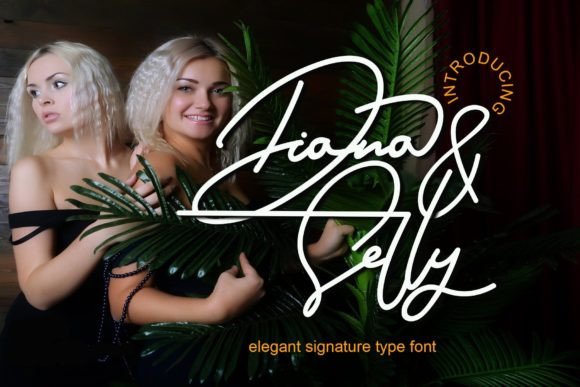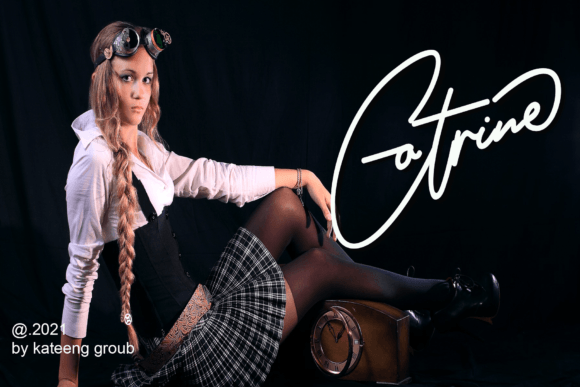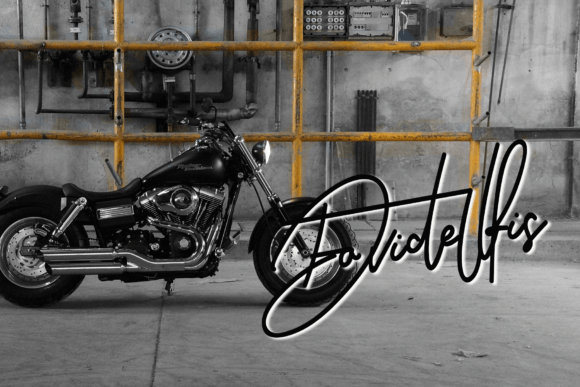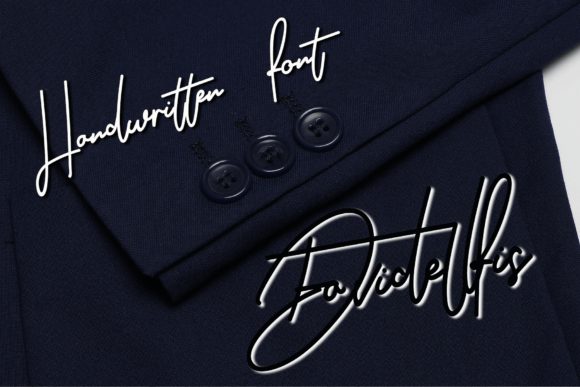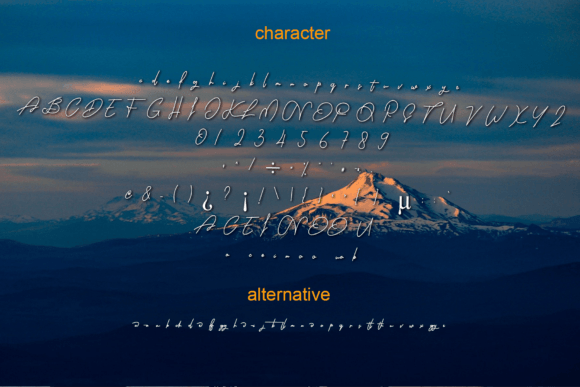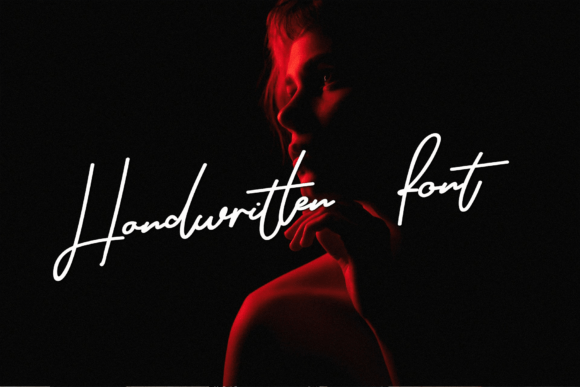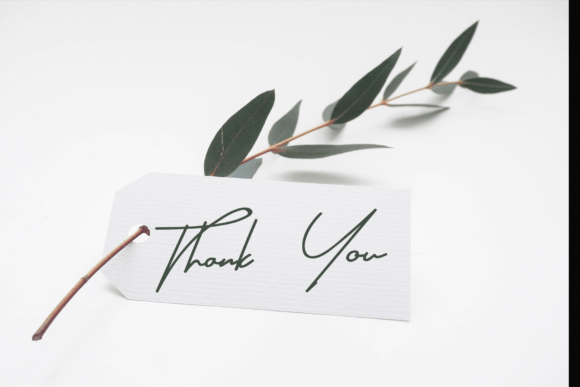
Diana and Shelly Font
“Diana And Shelly” is a modern luxury handwritten font that exudes elegance and sophistication. Its stylish and refined appearance makes it a perfect choice for a wide range of design projects. Whether you’re creating quotes, logos, blog headers, posters, branding materials, lettering, invitations, stationery, or any other creative content, “Diana And Shelly” adds a touch of class and allure to your designs, capturing everyone’s attention.
The font’s luxurious and contemporary style allows it to elevate your designs and create a lasting impression. Its handwritten charm adds a sense of authenticity, making your text appear personalized and refined. The font’s versatility makes it suitable for both digital and print applications, ensuring that your designs look stunning across various platforms.
One of the notable features of “Diana And Shelly” is its extensive set of glyphs and ligatures, made accessible through PUA encoding. This feature provides you with creative freedom and flexibility, allowing you to customize your designs with unique characters and flourishes. Whether you’re emphasizing specific words or creating intricate letter combinations, the font’s glyphs and ligatures enhance the visual appeal of your text.
By incorporating “Diana And Shelly” into your projects, you’re infusing them with a sense of luxury and sophistication. Its modern and elegant design captivates the viewer’s attention, making your designs visually appealing and memorable. Whether you’re a graphic designer, a content creator, or an individual working on personal projects, “Diana And Shelly” offers you a premium handwritten font choice to enhance your creative endeavors and create designs that leave a lasting impact.